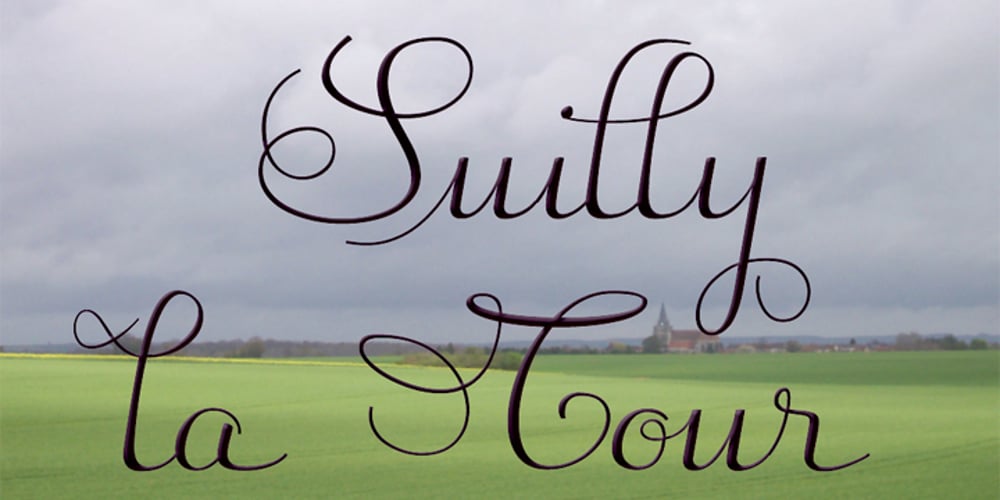
Suilly La Tour Font Family was designed by Jean Boyault and published by JBFoundry. Suilly La Tour contains 2 styles and family package options. Suilly la Tour is an elegant calligraphic and legible font. With his three character sets, Suilly la Tour uses OpenType features (liga, init, fina, isol) especially in second set. Suilly la Tour is available in two versions : -Ot with full OpenType features for OpenType friendly applications. -Office for usual word processors. In every case, use it for cards, invitations, menus, packaging, announcements, jackets…